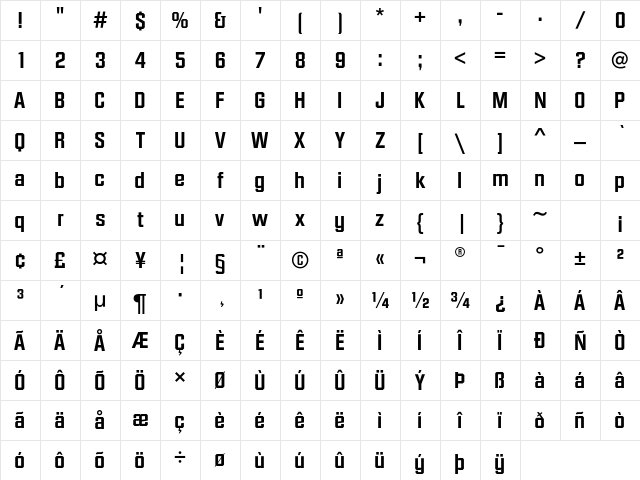
DiamanteEF DemiBold
Style: DemiBold
DiamanteEF Family
Design Context for DiamanteEF
DiamanteEF is a composed and adaptable typeface that performs quietly and consistently across a wide range of design contexts. Its bold stroke weight gives it real presence on the page.